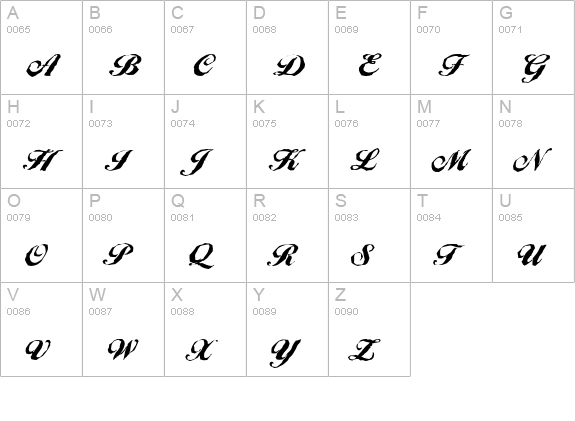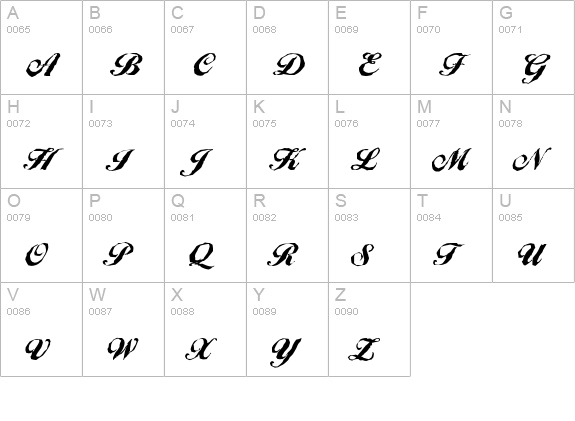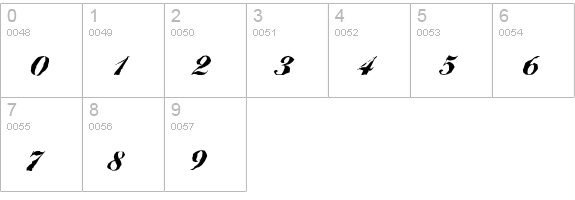
BallantinesAntique-Black-Regular is a maximum-weight, dramatic variant in the BallantinesAntique typeface family \xE2\x80\x94 well suited to maximum-impact headlines, posters, and packaging.
BallantinesAntique-Black-Regular font is a timeless and elegant typeface that exudes sophistication and charm. Its classic design features intricate details and a sense of vintage flair that is perfect for adding a touch of old-world charm to any project. The bold and striking characters of BallantinesAntique-Black-Regular font make it ideal for headlines, logos, and other display purposes. What sets BallantinesAntique-Black-Regular font apart is its versatility and ability to convey a sense of tradition and class. Whether used in print or digital designs, this font is sure to make a statement and leave a lasting impression on viewers. And the best part? BallantinesAntique-Black-Regular font is available for free download at FontsMarket.com. So go ahead and add this timeless typeface to your collection and elevate your designs with its classic beauty and charm.